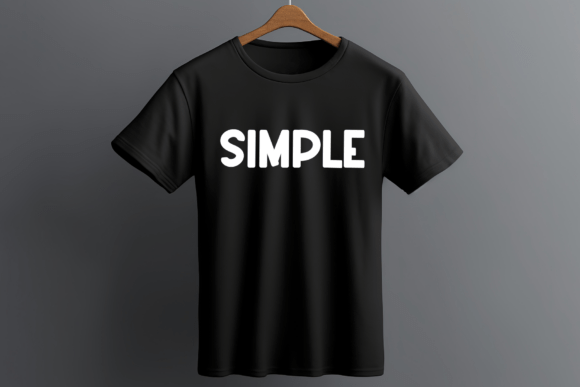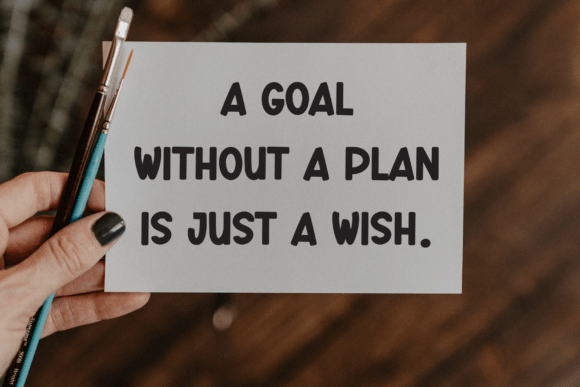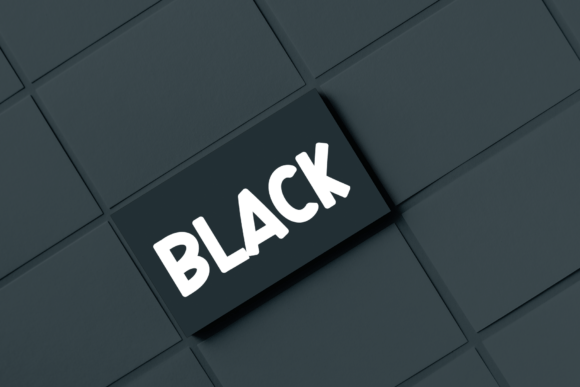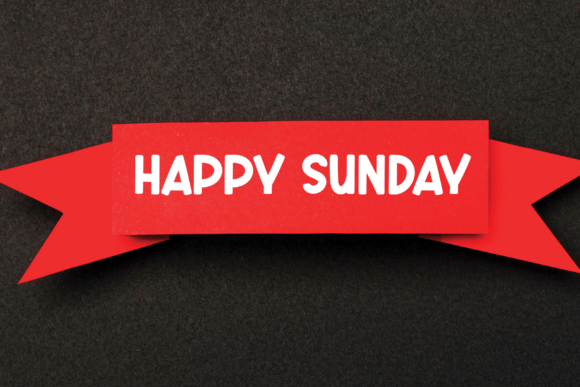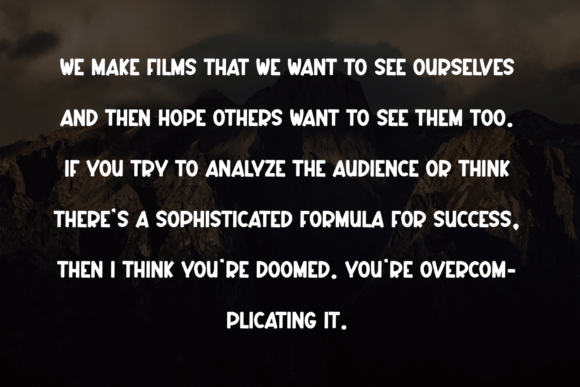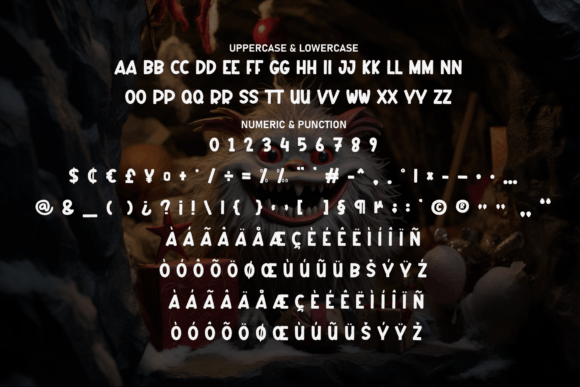
Introduction to Monster Spooky Font
Have you ever found yourself staring at a blank canvas, waiting for inspiration to strike? The blank page can be intimidating, but it’s moments like these that remind us why we love our creative pursuits. For designers, a well-chosen font can be the spark that sets our imagination ablaze.
Enter Monster Spooky Font, a delightful display font that’s equal parts playful and polished. With its clean lines and balanced letterforms, this font is the perfect addition to any creative project. Whether you’re working on a branding campaign, designing packaging, or crafting digital content, Monster Spooky Font adds a warm and inviting touch that’s sure to captivate your audience.
Key Features of Monster Spooky Font
- High-quality, spooky design perfect for creative projects, including horror-themed games, movies, and Halloween decorations.
- Includes a range of characters, including uppercase and lowercase letters, numbers, and special characters, making it a versatile design resource.
- Unique, hand-drawn style gives it a distinctive and spooky feel, perfect for adding a touch of eeriness to any creative project.
Honest Review: Monster Spooky Font
I recently stumbled upon the Monster Spooky Font while searching for a unique design resource to enhance my creative project. The font is free to download and offers a transparent background, which is perfect for designers who want to easily overlay text on images.
Here’s what I like about the Monster Spooky Font: ✨ The font has a great spooky feel to it, making it perfect for Halloween-themed designs. It’s also highly customizable, allowing you to adjust the size and color to suit your project’s needs. The font’s bold and playful nature makes it an excellent choice for titles and headings.
However, there are a few limitations to consider: ⚠️ The font’s quality may not be as high as some other premium fonts on the market. Additionally, the font’s style may not be suitable for all types of projects, such as corporate or formal designs.
Overall, I’d say the Monster Spooky Font is a great addition to any designer’s toolkit. It’s free, highly customizable, and perfect for creative projects that require a spooky or playful touch.
- Great for Halloween-themed designs and other spooky projects
- Highly customizable with options for size and color
- May not be suitable for all types of projects
- Quality may not be as high as premium fonts
Designing with Monster Spooky Font
Tips for Getting the Most Out of Monster Spooky Font
To get the most out of Monster Spooky Font, experiment with different font sizes, colors, and combinations with other design elements. You can also use the font in conjunction with other design resources, such as graphics and textures, to create a unique and spooky atmosphere.
Common Use Cases for Monster Spooky Font
Monster Spooky Font is commonly used in design projects that require a spooky or Halloween-themed atmosphere, such as:
- Posters and flyers for horror movies or haunted houses.
- Invitations and party decorations for Halloween parties.
- Social media graphics and advertisements for spooky-themed products or services.